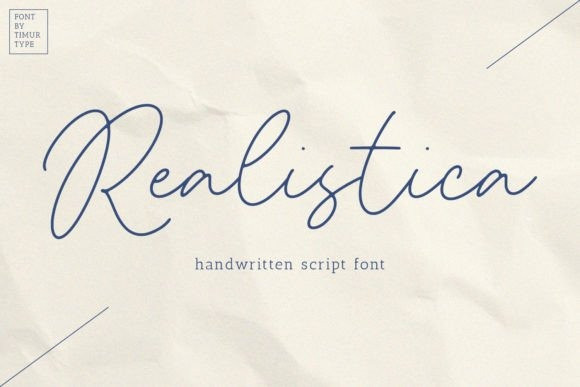
Ravenda Font
Realistica A Handwritten Font , which was created with great care and specially created for you
Realistica is perfect for product packaging, branding project, megazine, social media, wedding, or just used to express words above the background.